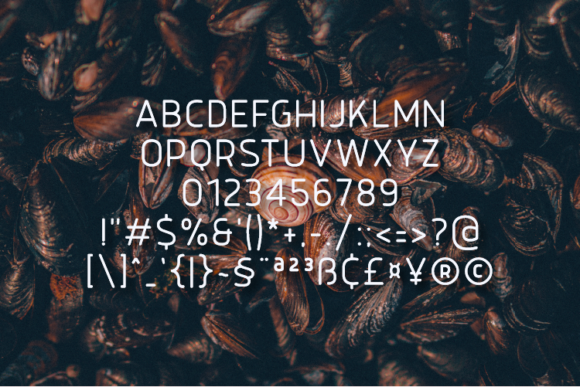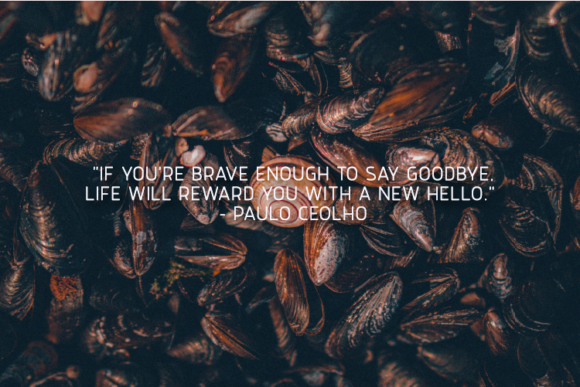
Introducing Centabre Font: The Ultimate Sans Serif for Your Design Projects
Are you tired of using the same old fonts for your design projects? Look no further than Centabre Font, a simple and versatile sans serif font designed to complement every single project you’re currently working on. With its clean lines and modern aesthetic, Centabre Font is perfect for creating beautiful headings, gorgeous invitations, stunning logos, and so much more!
What Makes Centabre Font So Special?
Centabre Font is more than just a font – it’s a design solution. Its simplicity and versatility make it an ideal choice for designers and crafters looking to add a touch of elegance and sophistication to their work. Whether you’re creating a logo, brochure, or social media graphic, Centabre Font is the perfect choice.
Key Features of Centabre Font
- Simple and Versatile: Centabre Font is designed to be simple and versatile, making it perfect for a wide range of design projects.
- Sans Serif: The clean lines and modern aesthetic of Centabre Font make it a great choice for designers looking for a sans serif font.
- Elegant and Sophisticated: Centabre Font adds a touch of elegance and sophistication to any design project.
How to Use Centabre Font in Your Design Projects
Centabre Font can be used in a variety of design projects, including:
- Headings: Use Centabre Font to create beautiful headings that grab attention and add a touch of elegance to your design.
- Invitations: Create gorgeous invitations that stand out from the crowd with Centabre Font.
- Logos: Use Centabre Font to create stunning logos that represent your brand and add a touch of sophistication to your design.
- Social Media Graphics: Add a touch of elegance and sophistication to your social media graphics with Centabre Font.
Why Designers and Crafters Love Centabre Font
Designers and crafters love Centabre Font for its simplicity, versatility, and elegance. Here are just a few reasons why:
- Easy to Read: Centabre Font is easy to read, making it perfect for body text and headings.
- Highly Versatile: Centabre Font can be used in a wide range of design projects, from logos and brochures to social media graphics and invitations.
- Modern Aesthetic: The clean lines and modern aesthetic of Centabre Font make it a great choice for designers looking for a font that’s both elegant and sophisticated.
Tips and Tricks for Getting the Most Out of Centabre Font
Here are a few tips and tricks for getting the most out of Centabre Font:
- Experiment with Different Sizes: Centabre Font looks great in a variety of sizes, from small body text to large headings.
- Pair it with Other Fonts: Centabre Font pairs well with a variety of other fonts, making it easy to create a unique and cohesive design.
- Use it for Branding: Use Centabre Font to create a consistent brand identity across all of your design projects.
In conclusion, Centabre Font is a simple and versatile sans serif font that’s perfect for designers and crafters looking to add a touch of elegance and sophistication to their design projects. With its clean lines, modern aesthetic, and high level of versatility, Centabre Font is the perfect choice for a wide range of design projects. So why wait? Download Centabre Font today and start creating beautiful designs that stand out from the crowd!